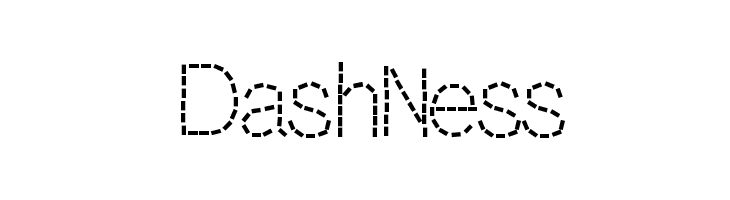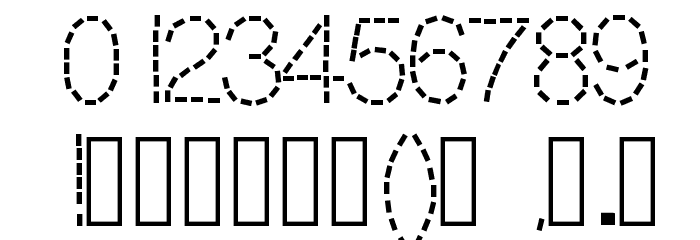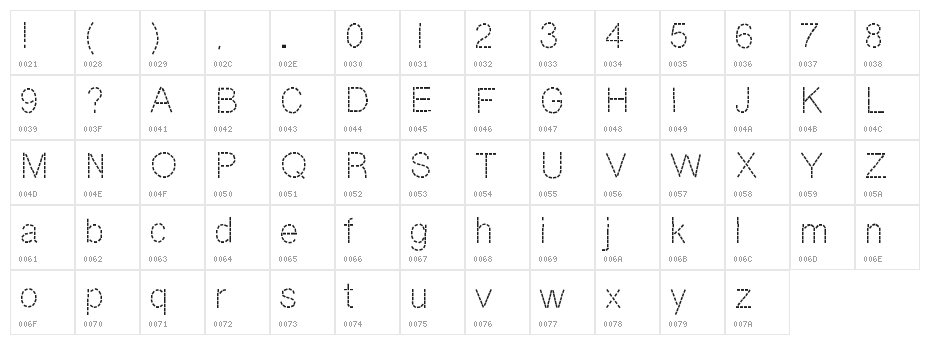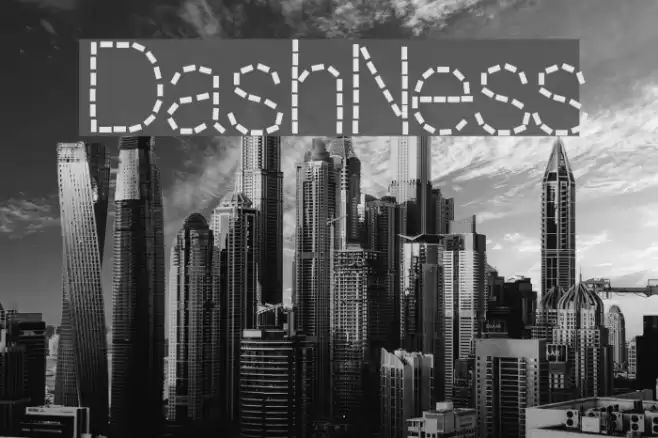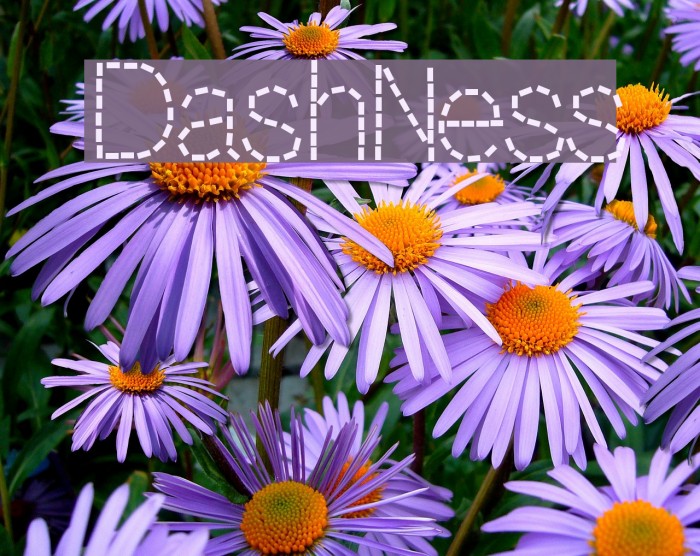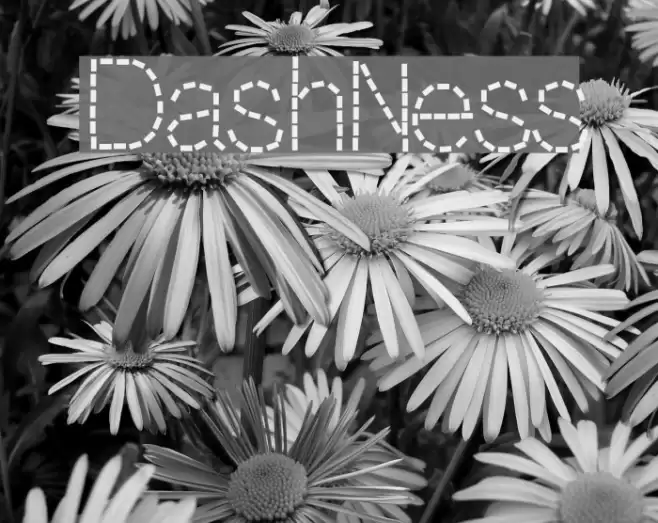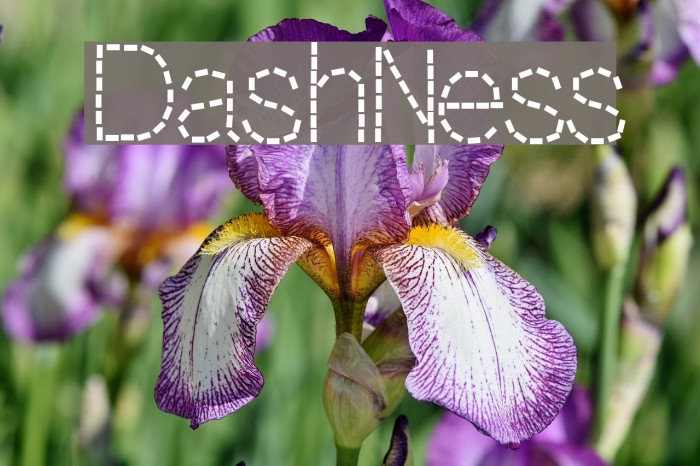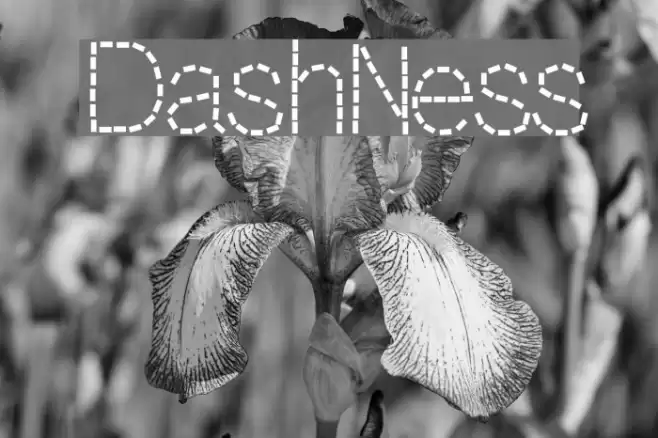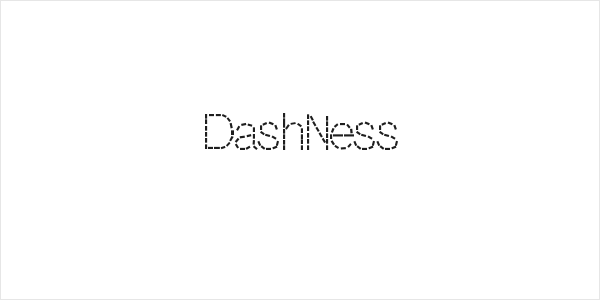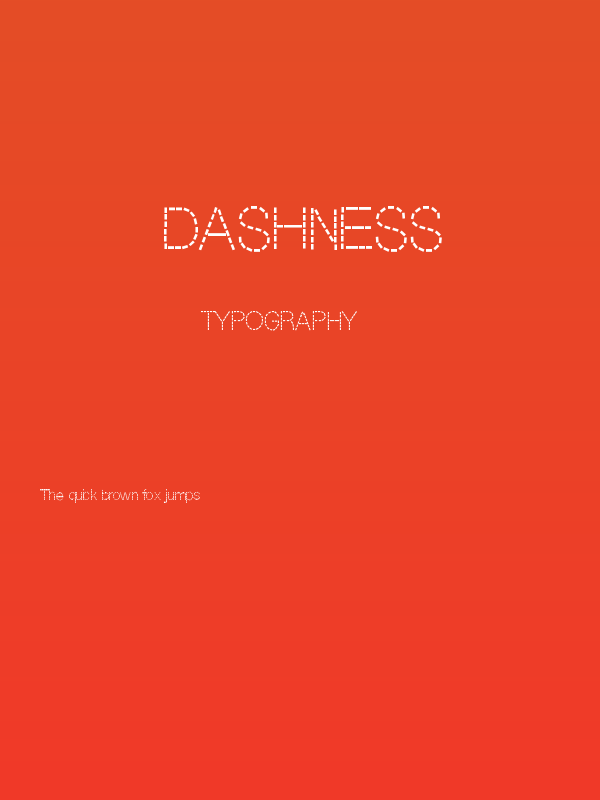
DashNess Font
DashNess Description
This font features a unique dashed line style, creating a modern and playful appearance. Each character is constructed from evenly spaced dashes, giving it a distinct and eye-catching look. The uppercase and lowercase letters maintain a consistent geometric form, while the numerals and special characters follow the same dashed pattern. This design is particularly suitable for projects that require a contemporary and informal touch, such as children's books, creative branding, or digital content. The font's structure ensures readability while offering a decorative flair.
| Proposed Projects | Ideal for creative branding, children's books, digital content, and informal designs. |